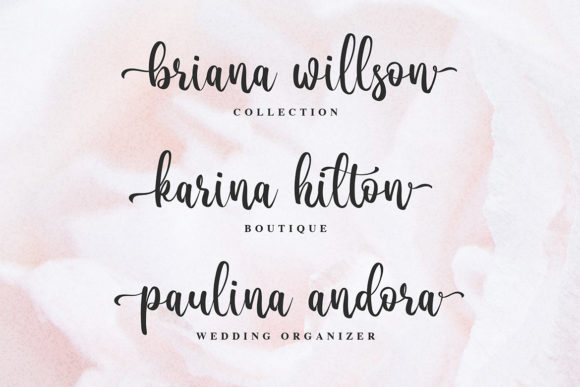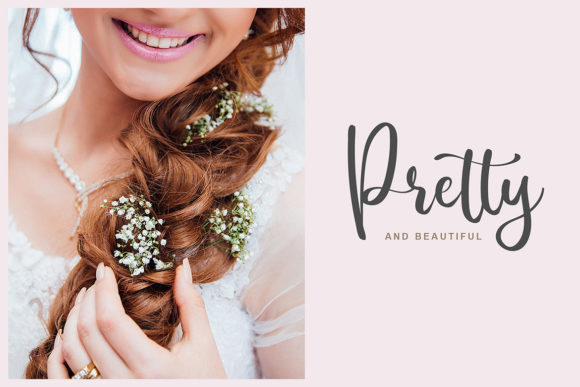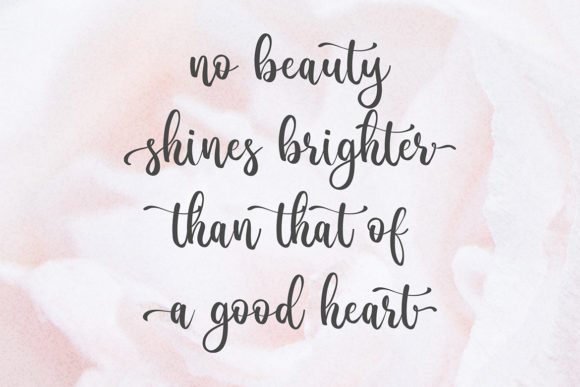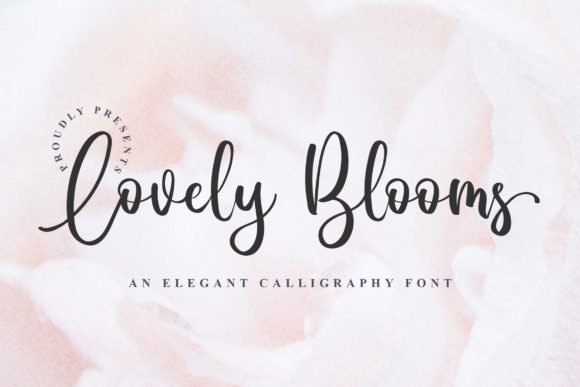
Introduction to Lovely Blooms Font
Lovely Blooms is an elegant calligraphy script font.
Fall in love with its authentic feel and use it to create gorgeous wedding invitations, beautiful stationary art, eye-catching social media posts, and cute greeting cards .
Key Features of Lovely Blooms Font
Why Choose Lovely Blooms Font?
Lovely Blooms Font offers exceptional quality and versatility, making it a valuable addition to your design toolkit. Whether you’re creating for personal projects or commercial use, Lovely Blooms Font delivers professional results.